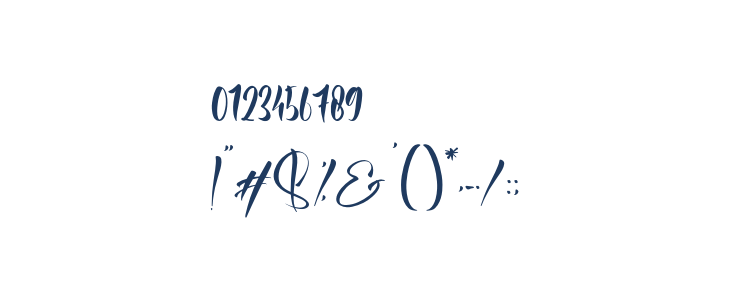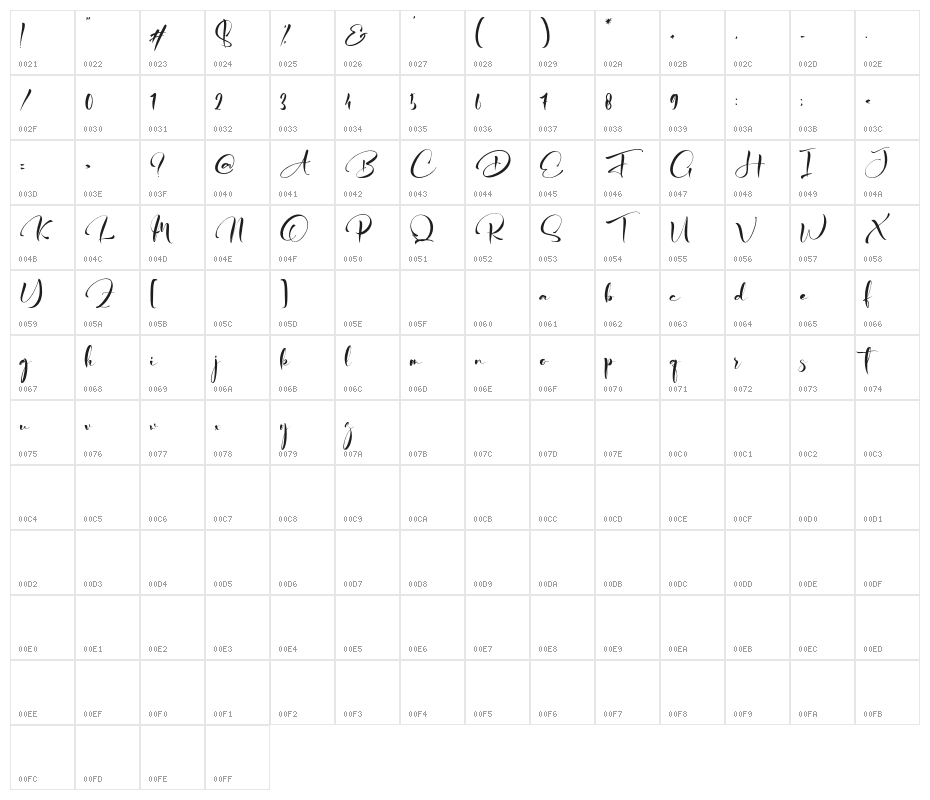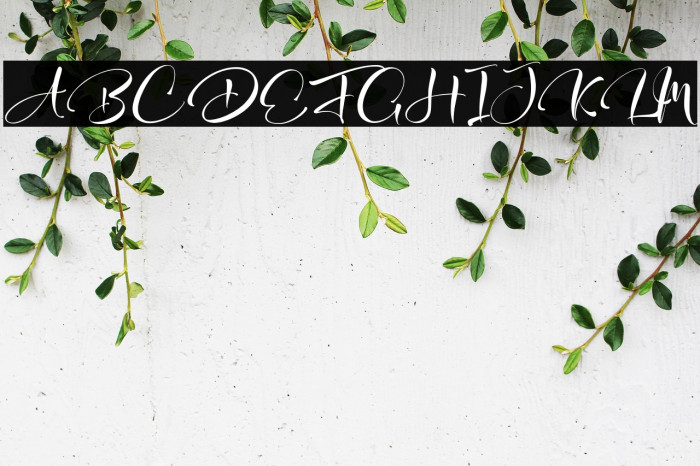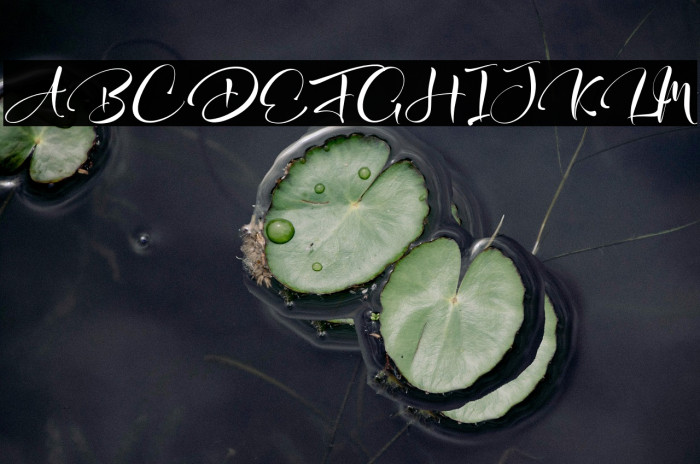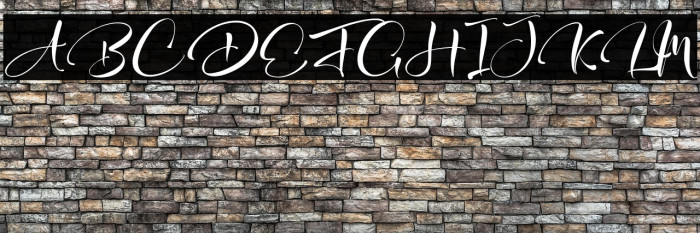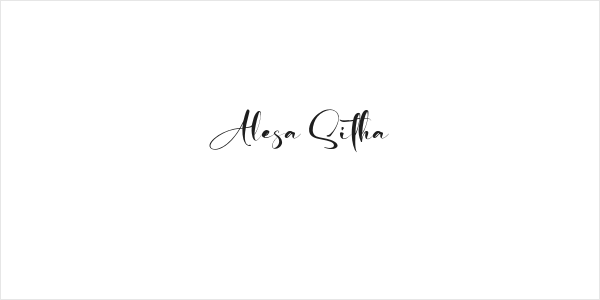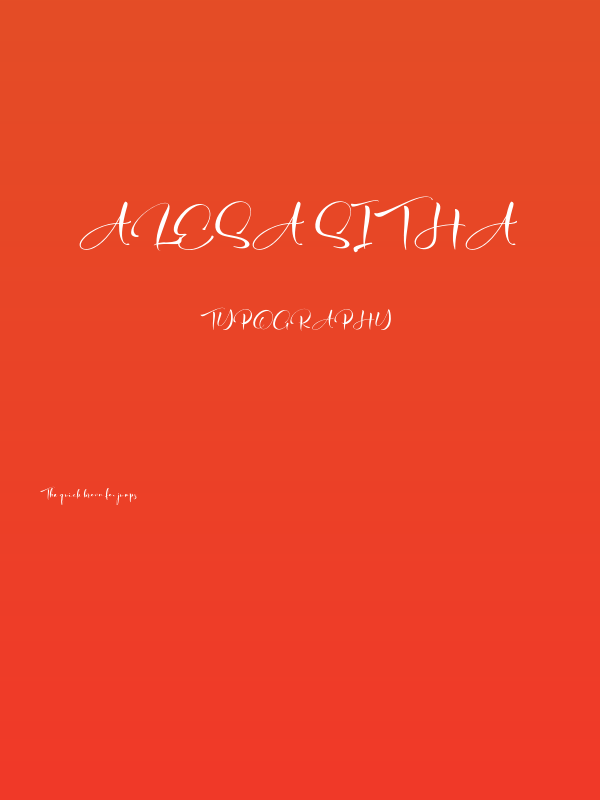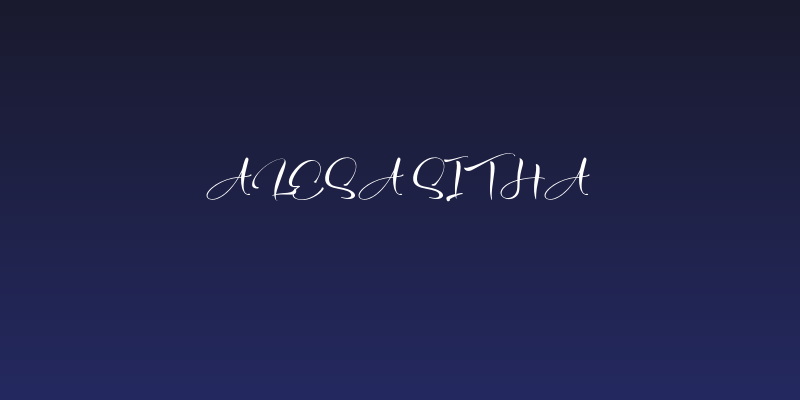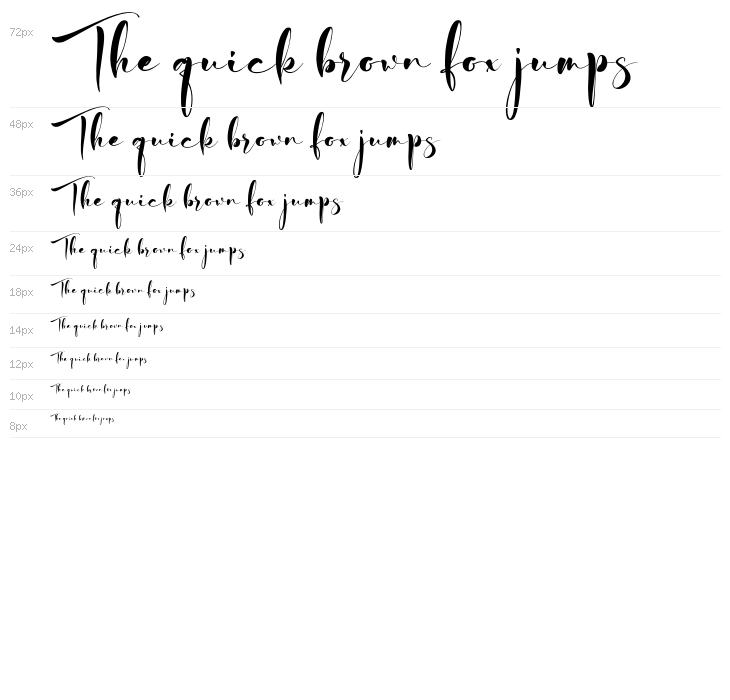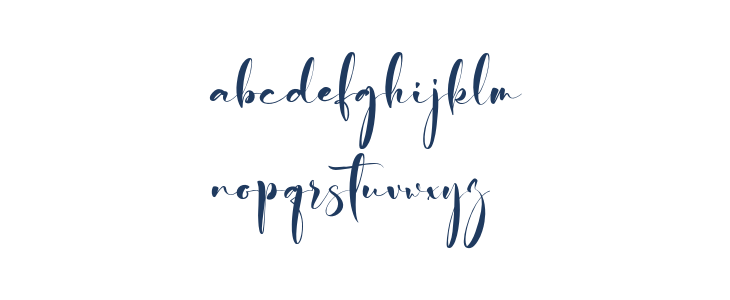
Alesa Sitha Font
Alesa Sitha Description
This font exudes elegance and sophistication with its flowing, cursive style. The letters are crafted with a graceful, sweeping motion, giving it a dynamic and lively appearance. The uppercase characters feature elaborate loops and flourishes, while the lowercase letters maintain a more restrained yet still decorative form. The numbers and special characters are consistent with the overall aesthetic, adding a touch of flair to any text. This font is perfect for projects that require a touch of class and personality, such as invitations, branding, and editorial design.
Use CaseHeadlines, Logos, Invitations
Proposed ProjectsIdeal for wedding invitations, luxury branding, editorial design, and greeting cards.